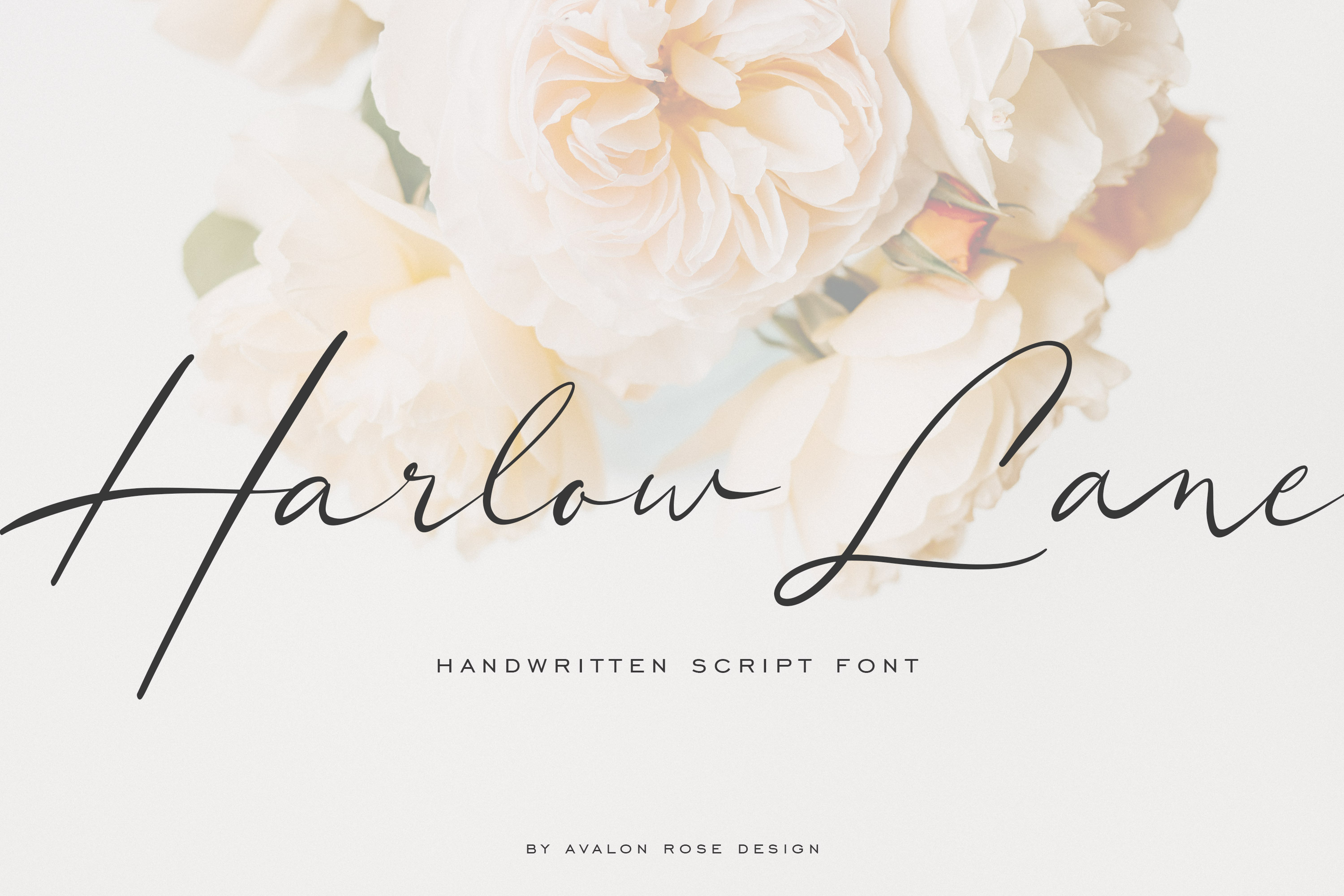
Harlow Lane Handwritten Script Font
Harlow Lane is a lovely hand-written script font that's perfect for logos, packaging design, quotes, or any place you need a sophisticated script that still has the organic feel of handwriting. Several lowercase ligatures are included which gives more design flexibility.
Ligatures: ab al alt an ant ar art as at bb ch dd ds ee en ent er ert es esh est ew ff gg ll mm nn oa oe oo or ou our ous pp rr sh ss th tr tt tu ust